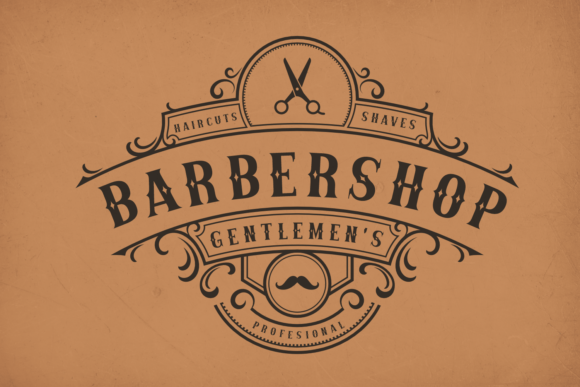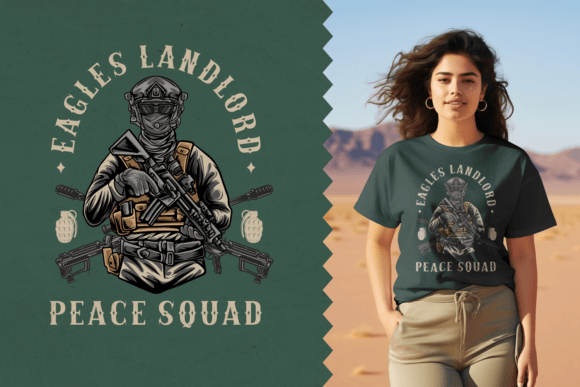
Brodin Font
Brodin is a robust, vintage-inspired blackletter font. With its rich, grunge-influenced aesthetics, Brodin exudes a potent ambience perfect for infusing any project with a bold and stylized edge. Whether it’s creating eye-catching posters, attention-grabbing ads, distinctive logos, unique signs, fashion-forward t-shirts, or memorable headlines, Brodin is the dynamic typeface designed to leave a lasting impression.